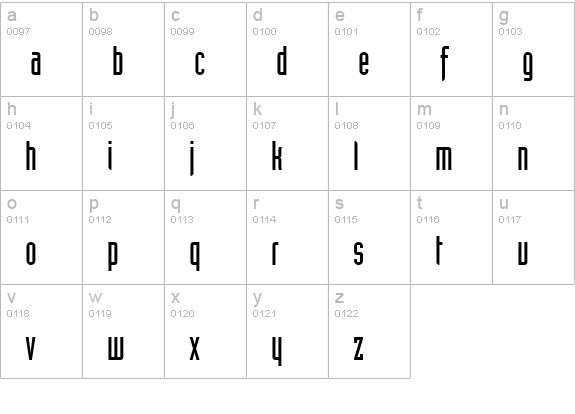
Assembly SSi font is a modern and sleek typeface that exudes a sense of precision and sophistication. With its clean lines and sharp edges, this font is perfect for conveying a sense of professionalism and efficiency in your designs. Whether you are working on a branding project, a website design, or any other creative endeavor, Assembly SSi font will add a touch of elegance and style. The best part is that Assembly SSi font is available for free download at FontsMarket.com. You can easily access this versatile font and use it in your projects without any cost. Don't miss out on this opportunity to enhance your designs with the sleek and contemporary look of Assembly SSi font. Download it now and elevate your creative work to the next level!